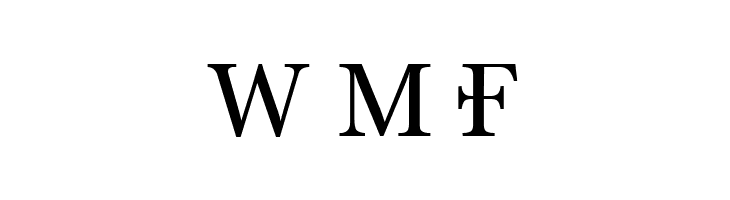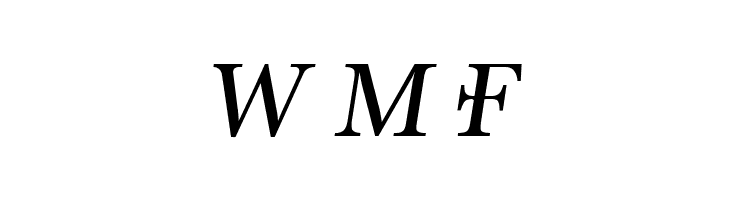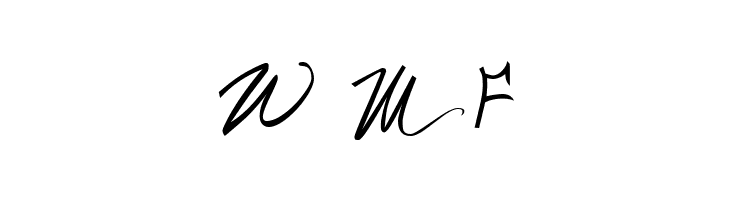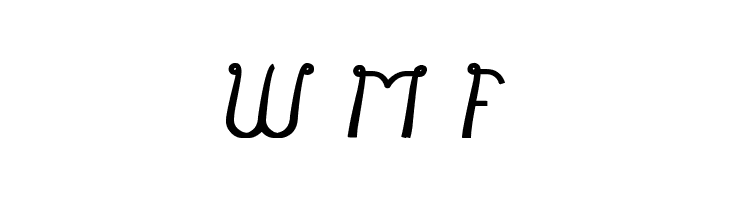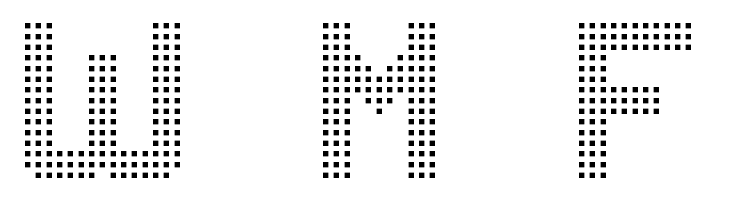
A classic serif font with elegant lines and a traditional, sophisticated appearance.
A classic serif font with an elegant italic slant and refined details.
A dynamic, cursive-inspired font with sharp, angular strokes and artistic flair.
A playful and whimsical script font with flowing, interconnected letters.
A sleek, modern condensed font with geometric elements and tight spacing.
A bold, expressive font with dynamic, flowing strokes.
A playful and eclectic font with exaggerated, dynamic characters.
A classic serif font with elegant, refined strokes and balanced character design.
A classic serif font with bold, elegant characters and moderate contrast.
An elegant italic serif font with flowing lines and traditional charm.
A bold serif font with strong strokes and elegant serifs.
A bold, classic serif font with strong strokes and pronounced serifs.
A classic serif font with elegant strokes and refined proportions.
A bold serif font with strong strokes and classic elegance.
A classic serif font with elegant, pronounced serifs and balanced proportions.
A pixelated, retro-style font with a blocky, geometric design.
A pixelated, retro-style font with a digital, grid-like appearance.
A pixelated, retro-style font with bold outlines and a classic 8-bit aesthetic.
A pixelated, retro-style font with a blocky, 8-bit aesthetic.
A pixelated, retro-style font with a blocky, geometric design.
A pixelated, retro-style font inspired by early digital graphics.
A pixelated, retro-style font with a blocky, geometric design.
A pixelated, digital font with a retro LCD display style.
A pixelated, LCD-style font with a modern, digital aesthetic.
A pixelated, digital-style font inspired by classic LCD displays.
A digital dot matrix font with a retro, pixelated style.
A pixelated, LED-style font with a retro digital aesthetic.
A whimsical, decorative font with curly serifs and playful character shapes.
A pixelated, retro-style font with a blocky, digital appearance.
A pixelated, retro-style font with a blocky, geometric appearance.